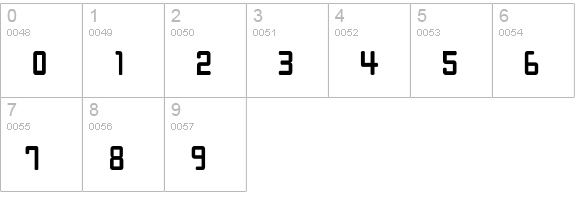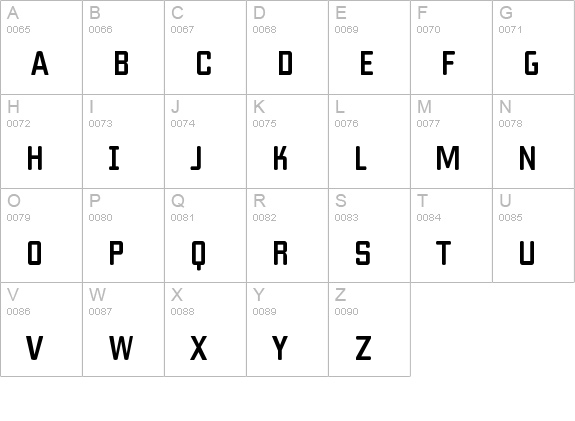
PFHipster Regular Font Details
PFHipster Regular is the standard, neutral variant in the PFHipster typeface family \xE2\x80\x94 well suited to general body text, paragraphs, and standard typographic work.
PFHipster Regular font is a modern and stylish typeface that exudes an effortlessly cool and trendy vibe. With its clean lines and sleek design, this font is perfect for adding a touch of sophistication to any project. Whether you're working on a branding project, poster design, or website layout, PFHipster Regular will make your text stand out with its contemporary aesthetic. The best part? PFHipster Regular font is available for free download at FontsMarket.com. This means you can easily access this high-quality font without any cost, making it a must-have addition to your font collection. Don't miss out on the opportunity to elevate your designs with PFHipster Regular font - download it today and start creating stunning visuals that are sure to impress!